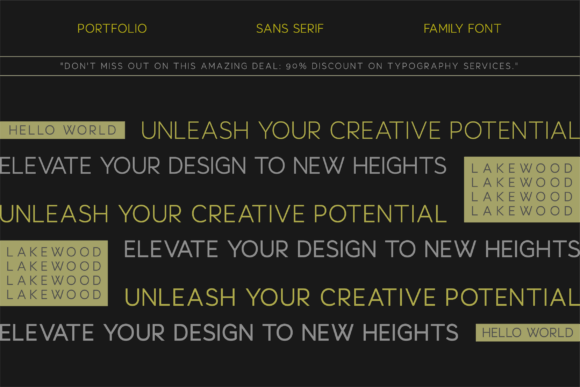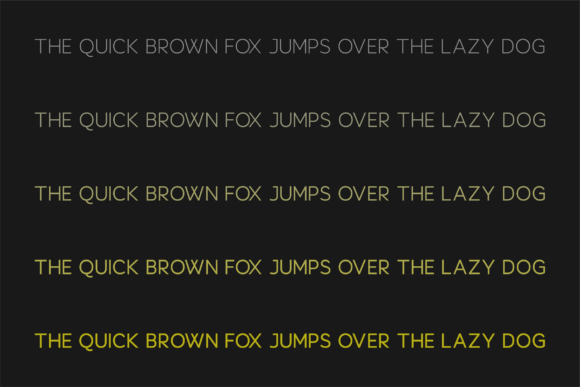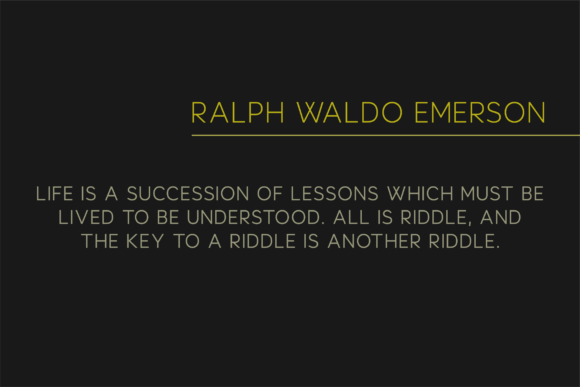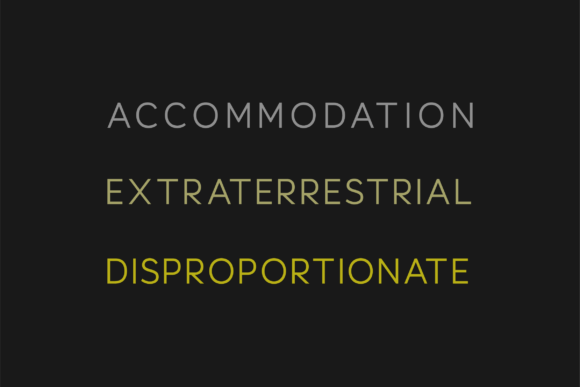
Introduction to Lakewood Font
Have you ever found yourself stuck in front of a blank canvas, struggling to find the perfect font to bring your creative project to life? It’s a familiar feeling for many designers, but what if you could unlock a new level of creativity with a single font family?
Enter Lakewood Font, a meticulously crafted sans-serif font family that redefines modern design. With its 5 distinct weights and unparalleled versatility, Lakewood Font is the ultimate design resource for any project, from high-end magazines and logos to film posters and beyond. Whether you’re working on a high-quality design for a luxury brand or a simple logo for a startup, Lakewood Font strikes the perfect balance between sophistication and simplicity.
Lakewood Font
- High-quality design resource ideal for creative projects, offering a unique and elegant aesthetic.
- Features a transparent background, allowing for seamless integration into any design or composition.
- Includes a range of font styles and weights, providing flexibility for designers to create visually appealing typography.
- Designed with a modern and minimalist approach, making it perfect for use in logos, branding, and digital signage.
Honest Review: Lakewood Font
As a designer, I’m always on the lookout for high-quality design resources to enhance my creative projects. Recently, I came across the Lakewood Font, and I was excited to give it a try.
Here are some things that work well with this font: ✨ It’s incredibly versatile and can be used for a variety of projects, from branding to editorial content. ✨ The font is highly legible, making it perfect for body text. ✨ The free download option is a huge plus, especially for smaller design businesses or personal projects.
However, I did encounter a few limitations: ⚠️ The font could benefit from more language support. ⚠️ The bold weight could be stronger, especially for headlines.
Overall, I’m impressed with the Lakewood Font. It’s a solid addition to any designer’s toolkit, and I’d definitely recommend it for your next creative project. With a little more development, I think this font could be a top contender in the design world.
The Lakewood Font is perfect for a variety of use cases, including business cards, flyers, brochures, and presentations. Its high-quality design and transparent background make it easy to use in a variety of creative projects.